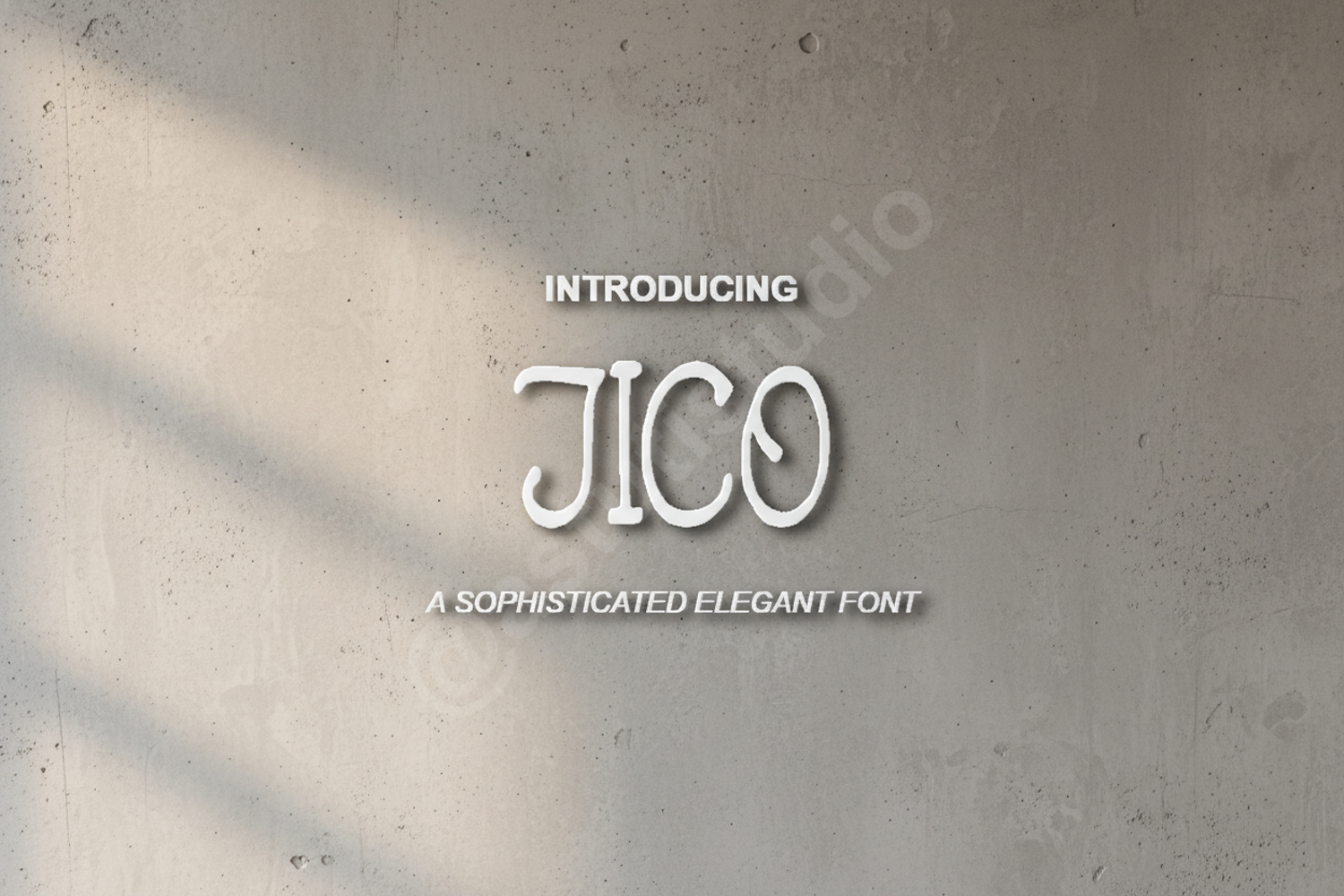
Jico | Modern Geometric Sans Serif Typeface
Jico
Elevate your design projects with Jico, a premium geometric sans serif font that blends modern minimalism with exceptional readability. Crafted with precision, Jico features clean lines and a balanced structure, making it a versatile choice for designers seeking a professional and contemporary aesthetic. Its timeless design ensures your work remains fresh and impactful across various mediums.
- Comprehensive Character Set including Uppercase, Lowercase, and Numbers
- Essential Punctuation and Symbols
- Multilingual Support for global accessibility